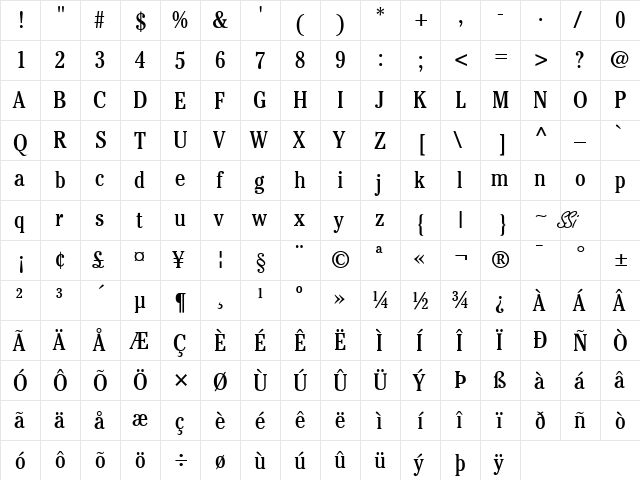
Cheltenham Condensed SSi Condensed
Design Context for Cheltenham Condensed SSi Typeface
Cheltenham Condensed SSi takes a measured approach to typography — its balanced proportions and neutral character make it a reliable workhorse for both digital and print work. The condensed width makes it efficient for tight spaces without sacrificing legibility.